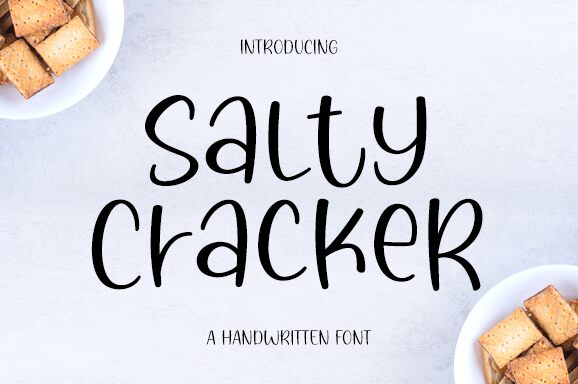
Salty Cracker font by Graphix Line Studio captivates with its charming handwritten style, offering a playful yet elegant touch to any design. The font's handwritten aesthetic enhances its visual appeal, creating an inviting and warm impression. Salty Cracker is perfect for projects seeking an informal and personable feel, making it ideal for logos, invitations, or social media graphics.
This free font brings a delightful blend of creativity and professionalism, and its unique flair ensures your designs stand out. The rounded strokes add to its friendly appearance, enabling versatile application across various contexts.